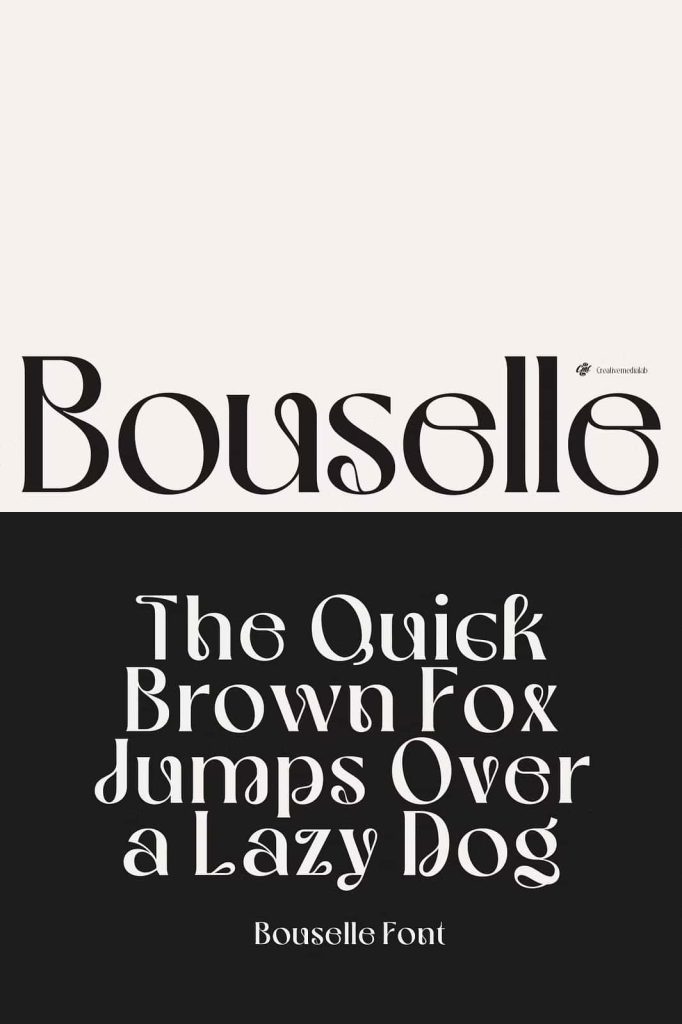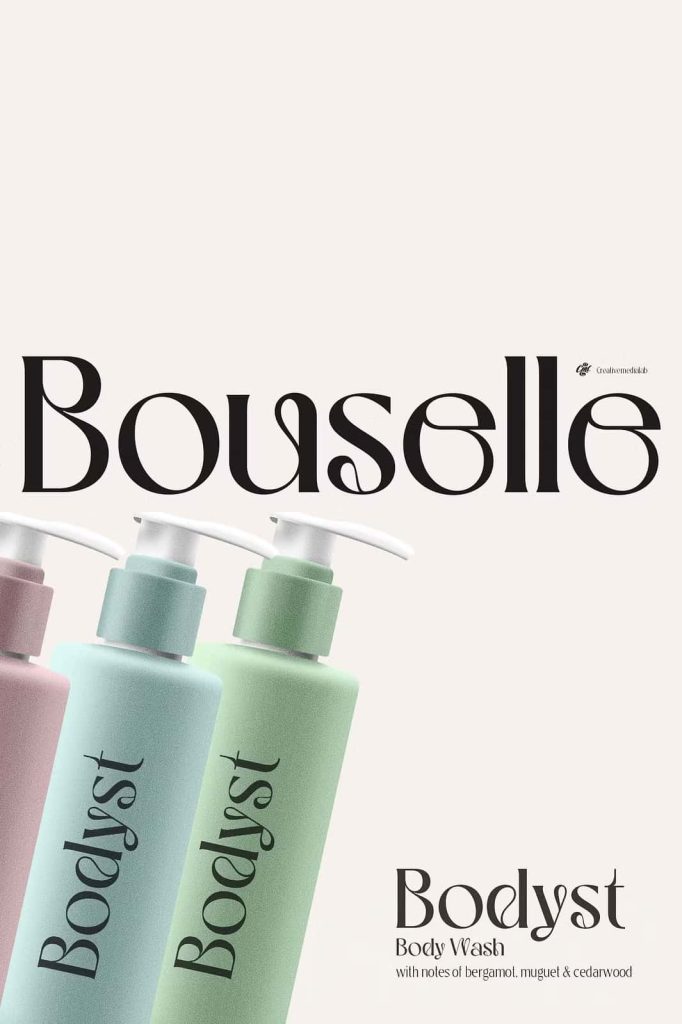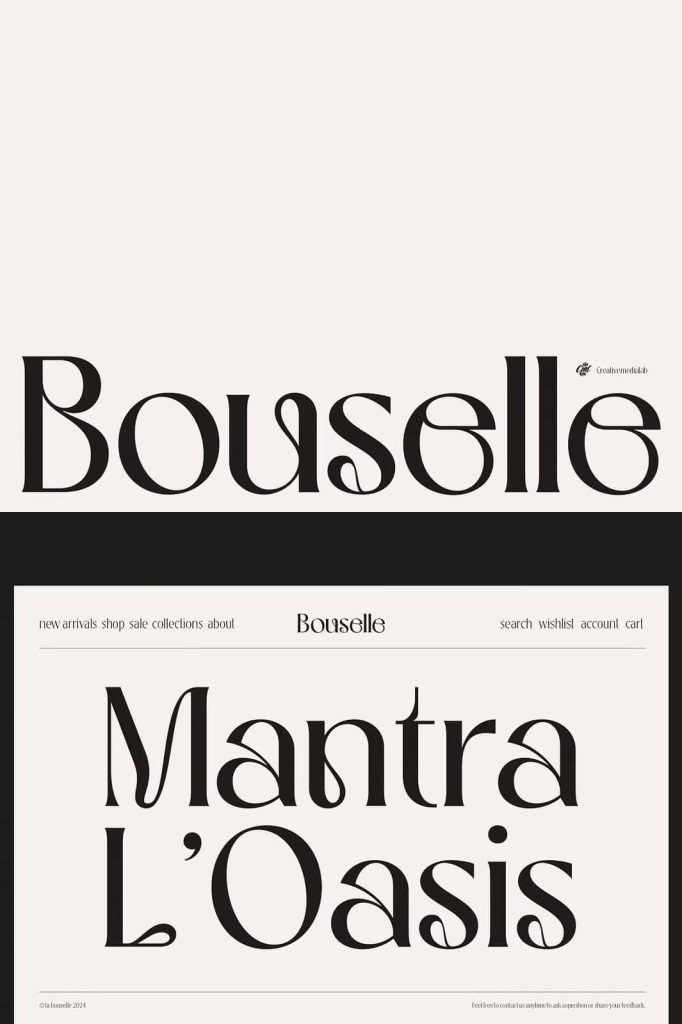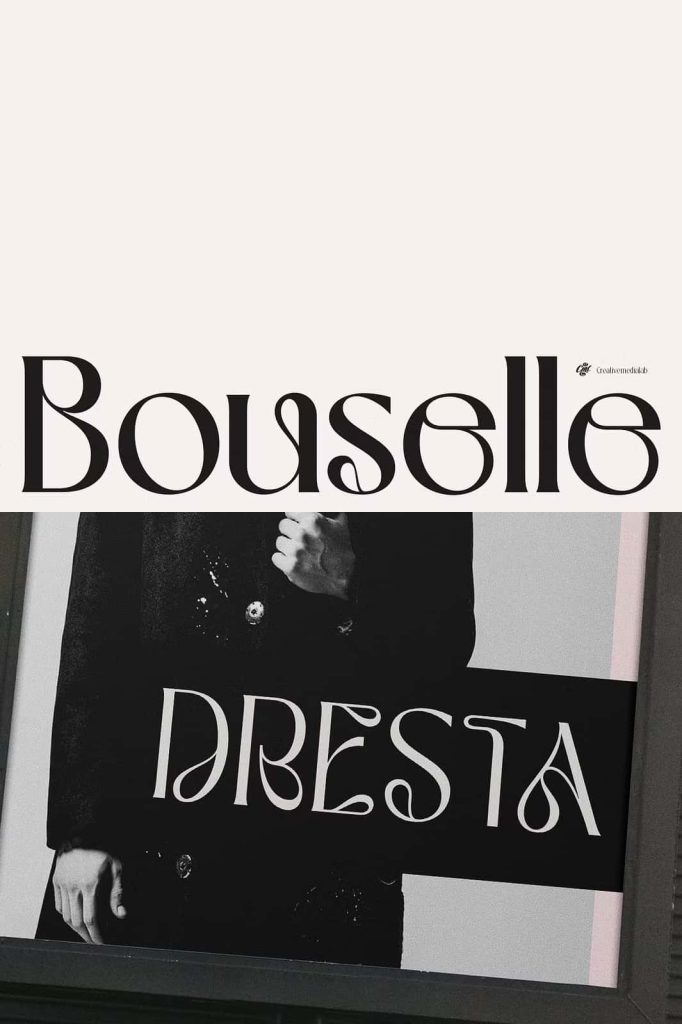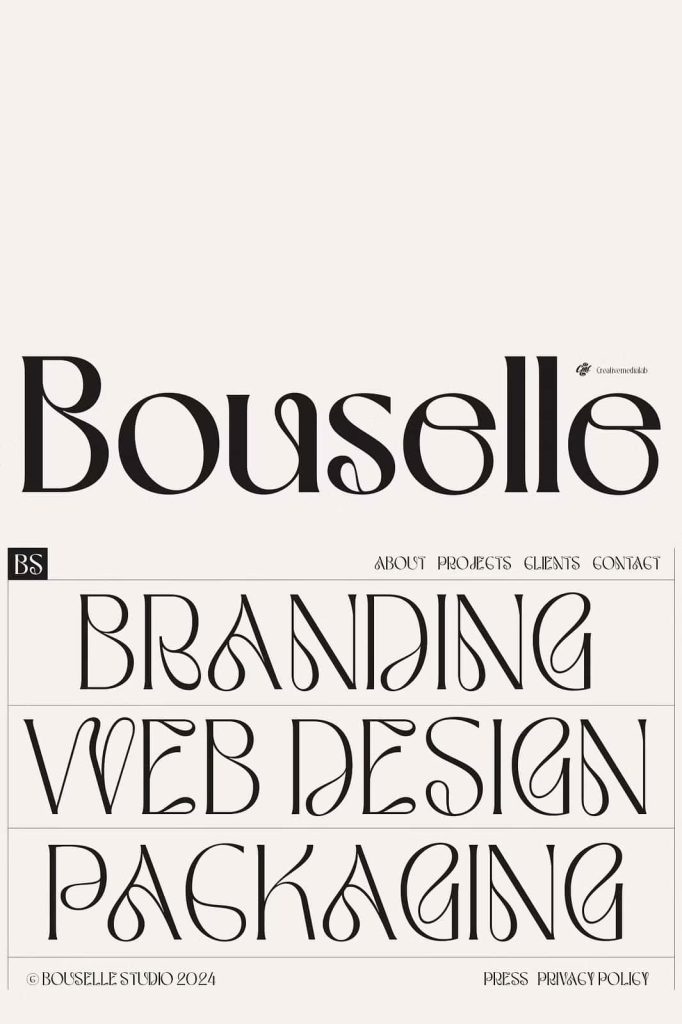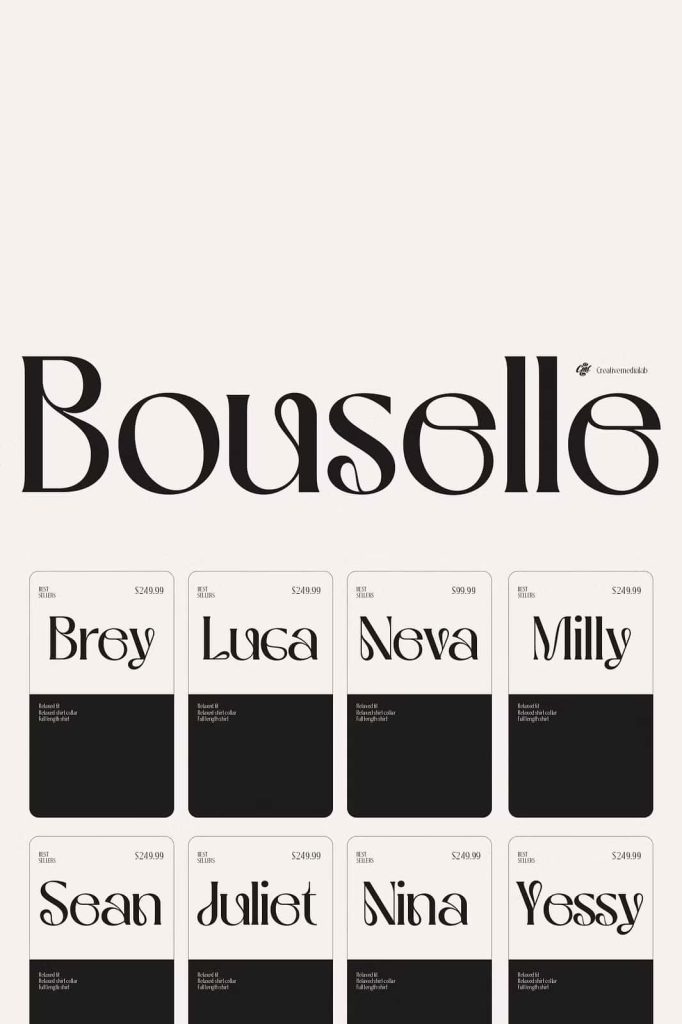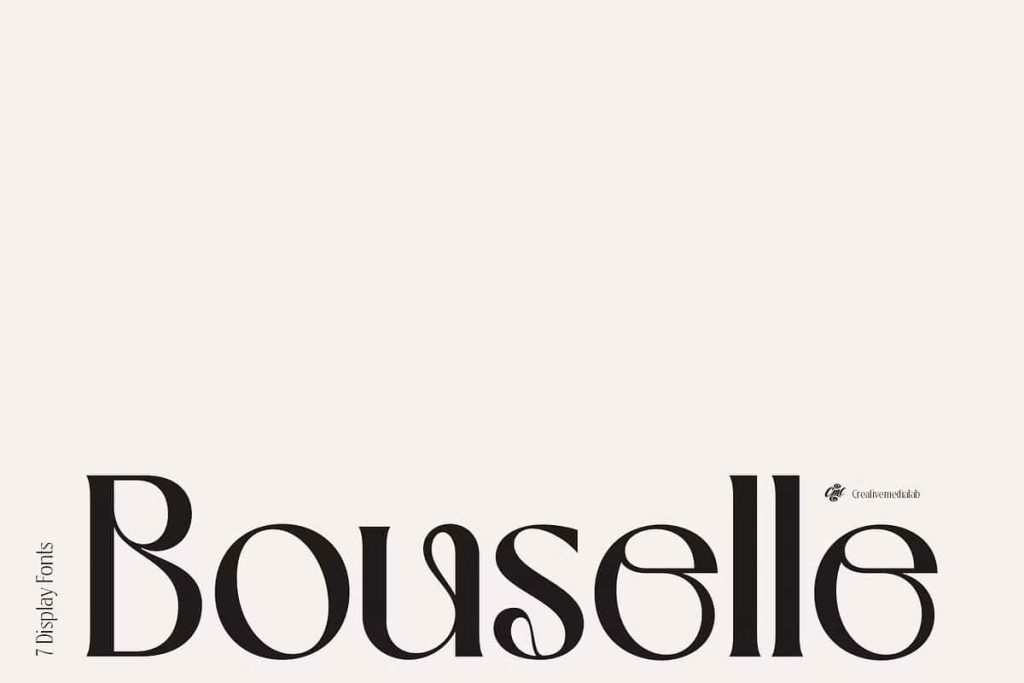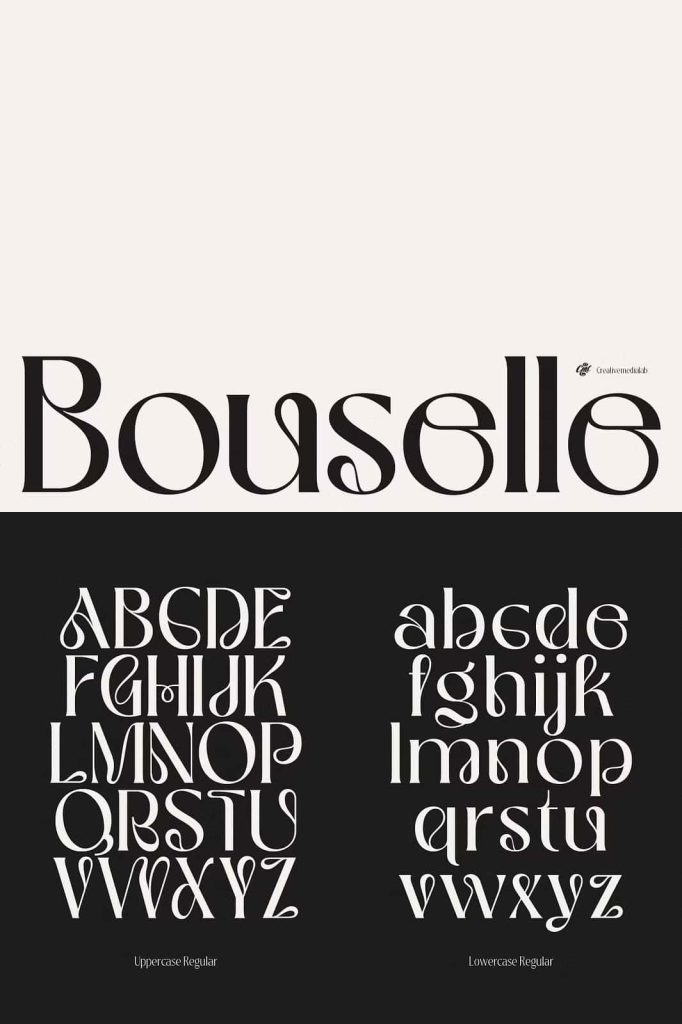
Bouselle Retro Serif Font
Bouselle is a modern serif font that blends retro inspiration with contemporary design sensibilities. Drawing strong influence from the psychedelic design movement of the 1970s, this typeface introduces expressive curves and unique letterforms that immediately capture attention. Bouselle transforms classic serif structure into something bold, artistic, and visually memorable.
The design highlights flexible curved lines and distinctive character shapes that reflect the creative spirit of the 70s era. This period of design history introduced typography that felt energetic, experimental, and full of personality. Bouselle embraces that heritage while refining it for modern design needs.
Designers who want to create expressive and nostalgic typography will find Bouselle to be a powerful creative tool. Its retro charm and elegant serif structure work together to produce typography that feels both classic and fresh.
Inspired by the Psychedelic 70s Design Era
The psychedelic design movement of the 1970s played a major role in shaping Bouselle’s visual identity. During that time, designers experimented with flowing shapes, exaggerated curves, and imaginative typography that broke away from rigid traditional structures.
Bouselle captures the energy and artistic freedom of this era. The font introduces curved strokes and fluid forms that give each letter a dynamic presence. These shapes reflect the playful and expressive design language that defined many posters, album covers, and advertisements of the psychedelic period.
While the font celebrates retro inspiration, it avoids feeling outdated. Instead, the design carefully balances vintage personality with modern refinement. This approach allows designers to use Bouselle in contemporary layouts while still enjoying the nostalgic character of 70s typography.
Retro Character with Modern Precision
Bouselle maintains the creative spirit of vintage typography while applying modern design precision. Each letterform receives careful attention to ensure visual balance and readability. The result is a font that feels expressive without sacrificing clarity or structure.
This balance allows designers to confidently use Bouselle in both artistic compositions and professional branding projects.
Elegant Serif Structure
Although Bouselle draws inspiration from psychedelic design, it still retains the elegance of a traditional serif typeface. The presence of refined serifs adds a sense of structure and sophistication that complements the playful curves found throughout the design.
The serif elements ground the font visually, allowing it to function well in both decorative and practical contexts. Designers can rely on Bouselle to deliver expressive typography while maintaining a level of refinement that suits modern design standards.
The serif shapes also create visual rhythm across words and sentences. This rhythm improves readability while enhancing the overall aesthetic of the typography.
Curved Letterforms that Stand Out
One of the most distinctive characteristics of Bouselle is its flexible curved lines. Some characters feature dramatic curves that stretch and flow in ways that immediately draw the viewer’s eye. These shapes give the font a lively and distinctive personality.
These curved elements introduce movement into the typography. Instead of static letterforms, Bouselle creates visual motion that energizes the entire design. This feature makes the font especially effective in large display settings.
A Unique Typeface for Creative Projects
Bouselle stands out as a highly creative serif font that allows designers to explore bold typographic compositions. Its unique combination of retro inspiration and modern design flexibility makes it suitable for a wide range of visual projects.
The font works particularly well in designs where personality and originality play a central role. Designers can use Bouselle to break away from conventional typography and introduce a distinctive visual style.
Because of its expressive design, the font performs best in headlines, titles, and display typography where its details can shine.
Ideal Applications for Bouselle
Bouselle adapts well to many different creative design contexts. Designers often use this font for projects that require strong visual identity and memorable typography.
- Retro-inspired branding and logo design
- Creative posters and promotional graphics
- Album covers and music artwork
- Vintage-themed packaging design
- Editorial headlines and magazine layouts
- Website hero titles and display typography
- Artistic social media graphics
In each of these applications, Bouselle helps transform simple text into bold visual statements.
Perfect Balance Between Nostalgia and Modern Design
Bouselle successfully bridges the gap between nostalgic inspiration and modern usability. The retro curves and psychedelic influences celebrate the creative freedom of the 1970s, while the refined serif structure ensures the font remains practical for contemporary design projects.
This balance makes Bouselle highly versatile. Designers can incorporate the font into modern branding systems, editorial layouts, and digital graphics without losing the distinctive retro character that makes it special.
The typography feels expressive, stylish, and full of personality, allowing designers to craft visuals that stand out in crowded design environments.
Bring Retro Elegance to Your Typography
Bouselle offers designers an opportunity to explore a bold and artistic typographic style rooted in the psychedelic design era. The combination of flowing curves, elegant serifs, and unique character shapes gives the font a powerful visual identity.
Whether you want to create vintage-inspired branding, expressive posters, or eye-catching headlines, Bouselle provides the tools needed to achieve a memorable typographic result.
With its strong retro influence and refined modern structure, Bouselle transforms ordinary text into captivating design elements that celebrate creativity, nostalgia, and artistic expression.